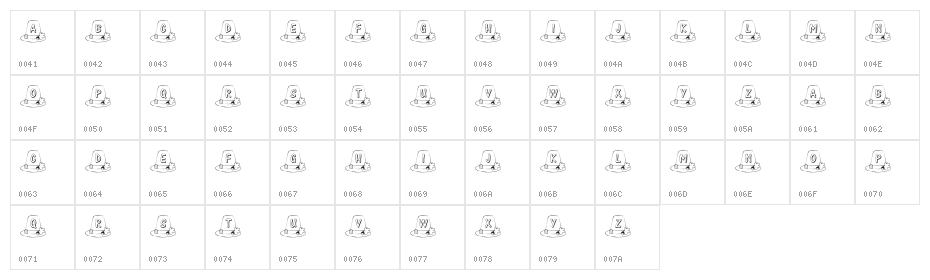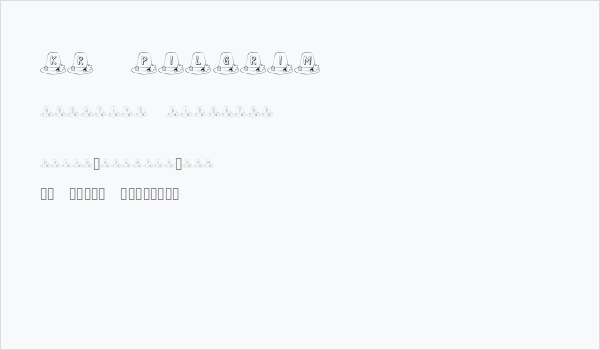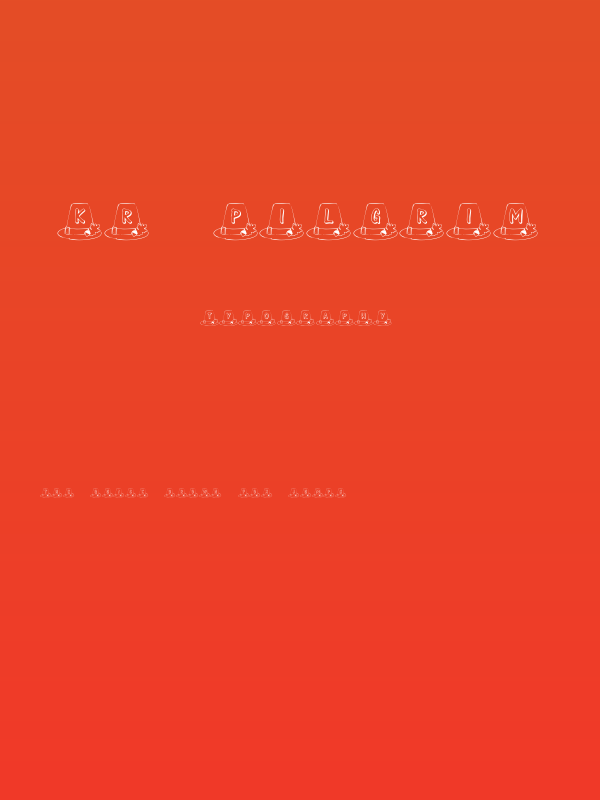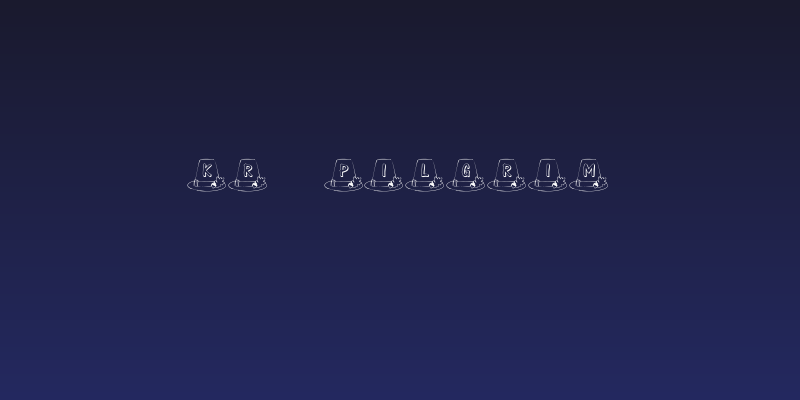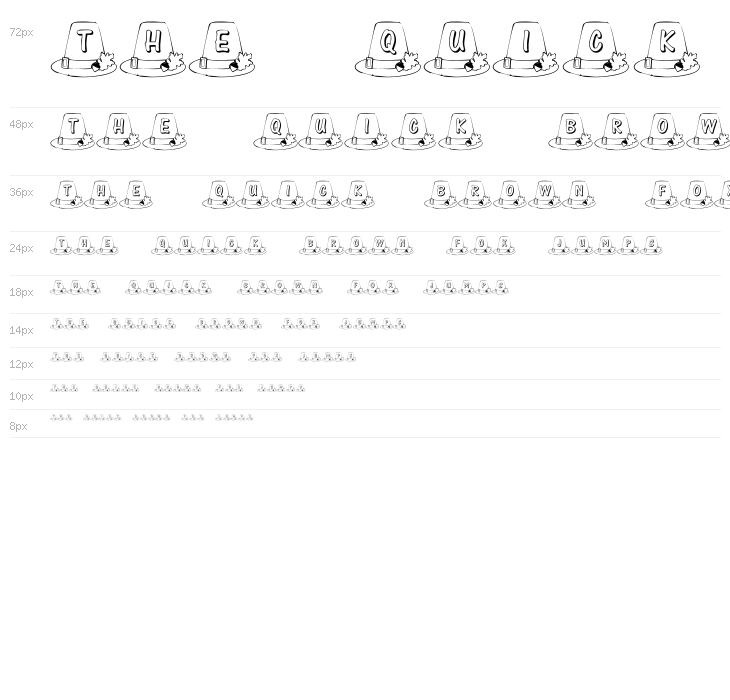
KR Pilgrim Font
KR Pilgrim Description
This whimsical and decorative font features each letter encased within a stylized pilgrim hat, complete with a buckle and feather detail. The letters are bold and uppercase, with a playful and festive appearance. The font is highly thematic, making it ideal for seasonal or holiday projects. Each character is distinct, with a consistent design that incorporates the pilgrim hat motif, adding a unique and charming touch to any text. The font's playful nature and thematic elements make it stand out, offering a creative way to convey messages in a fun and engaging manner.
| Use Case | Headlines, Logos, Thematic decorations |
| Proposed Projects | Ideal for Thanksgiving-themed invitations, holiday cards, seasonal posters, and festive banners. |